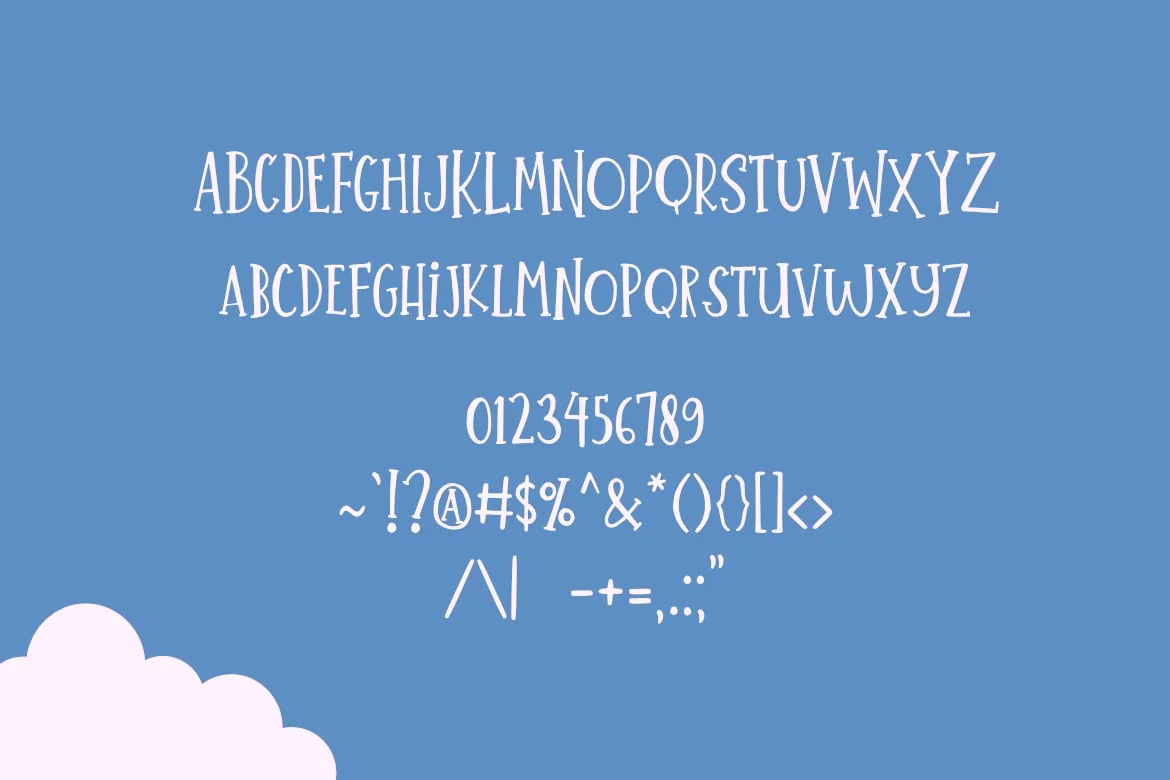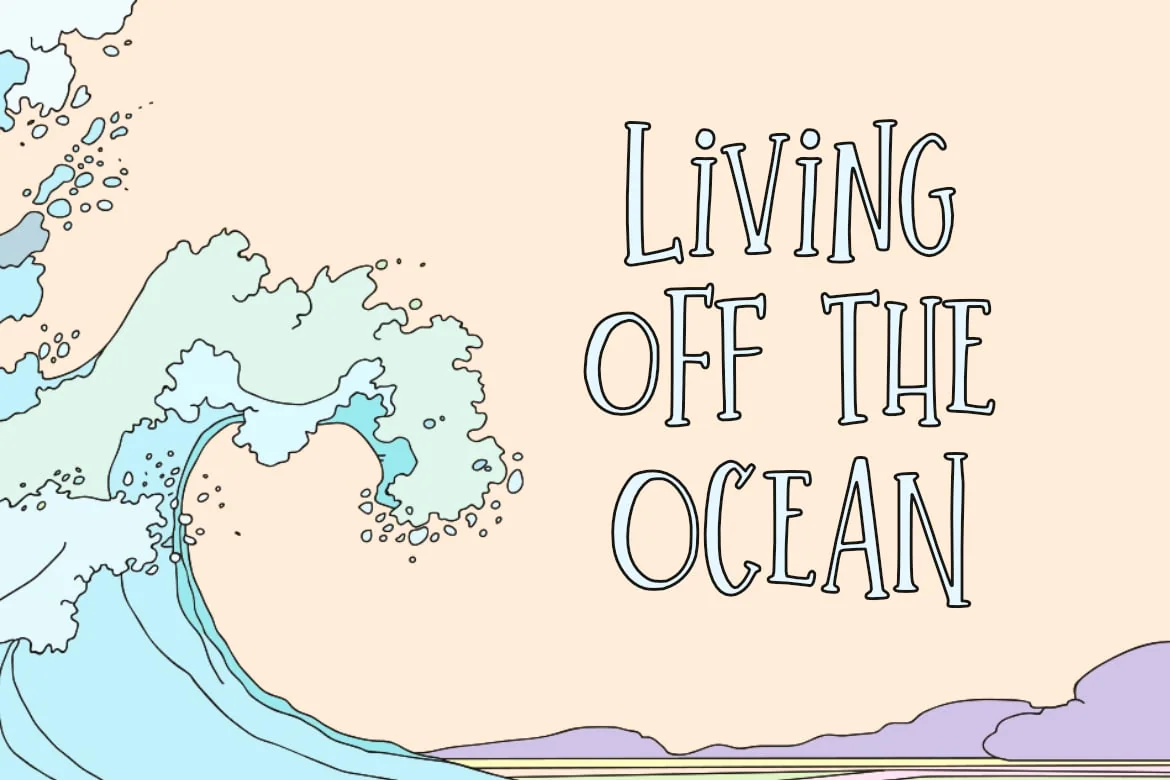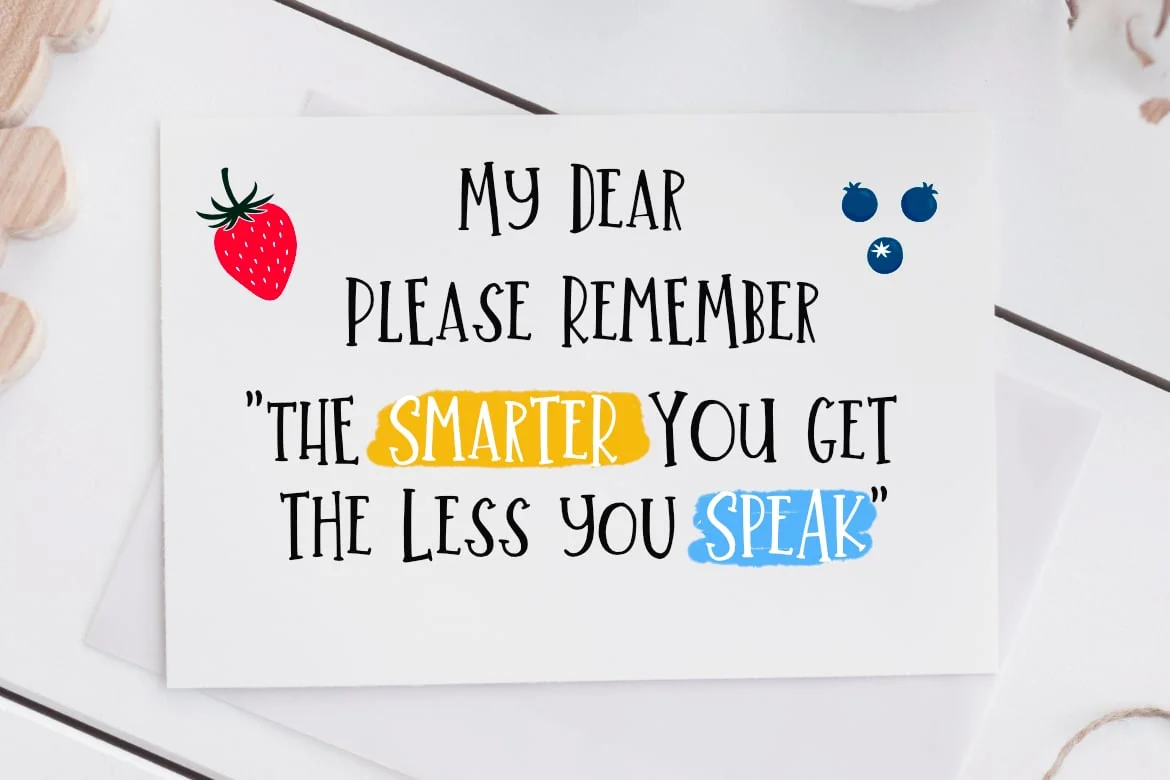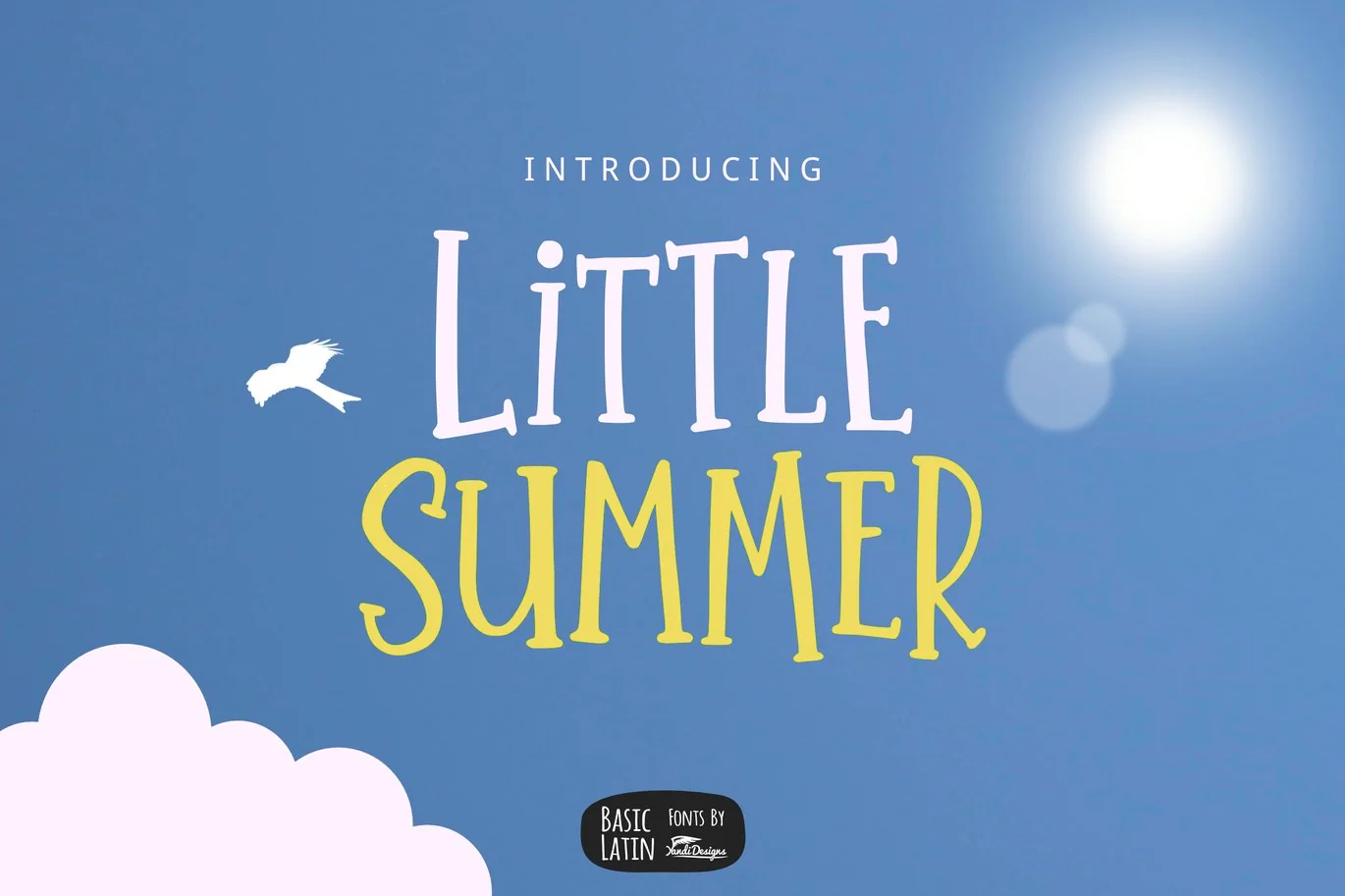
Little Summer Font
Simple fun and cute all caps or uppercase font , suitable for many project children book, quotes, logo , heading , title etc.
Basic Latin (Standard English character , number, symbol)